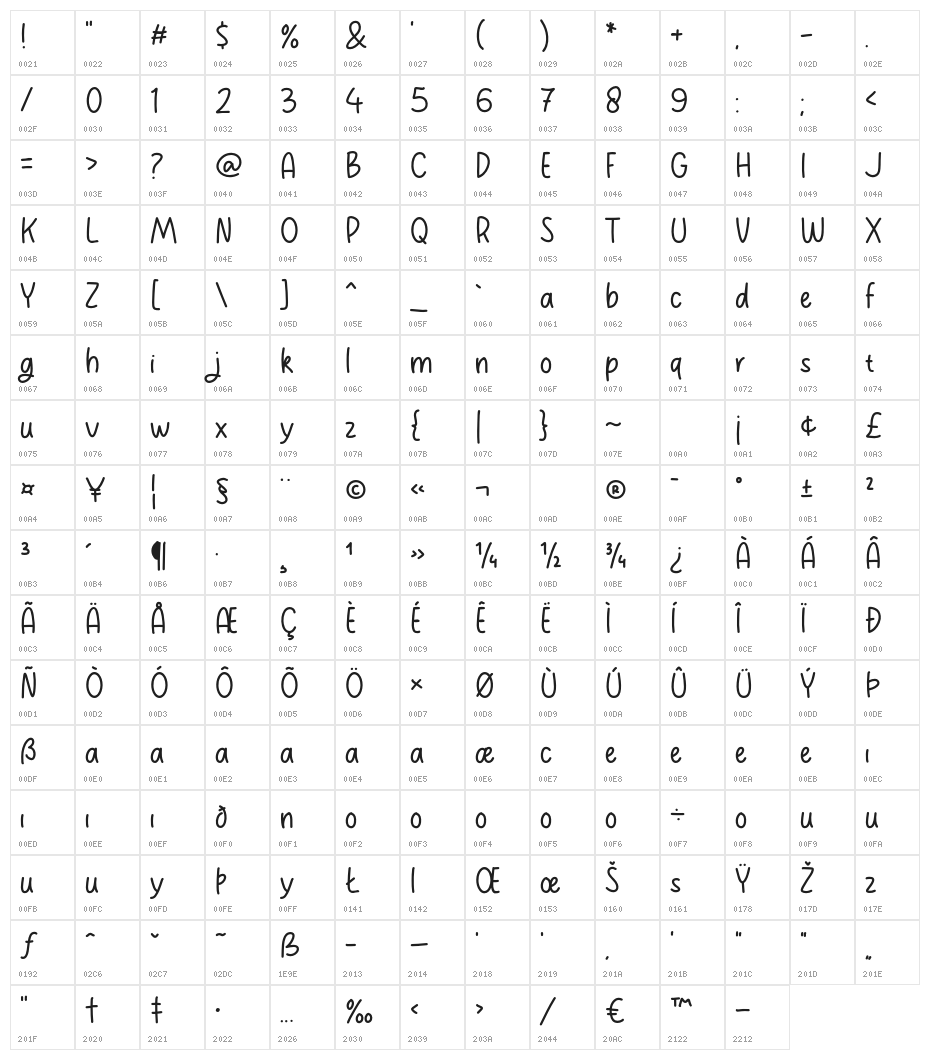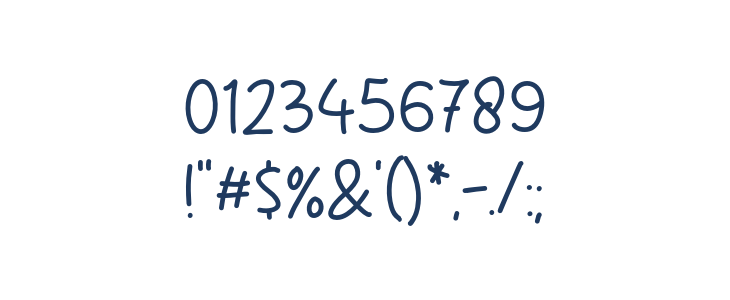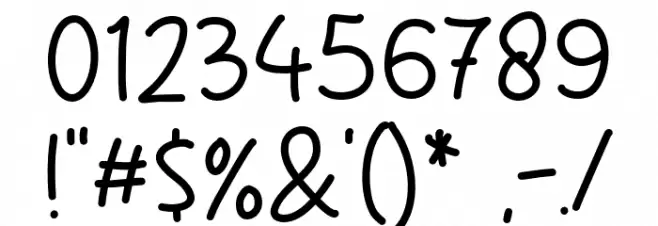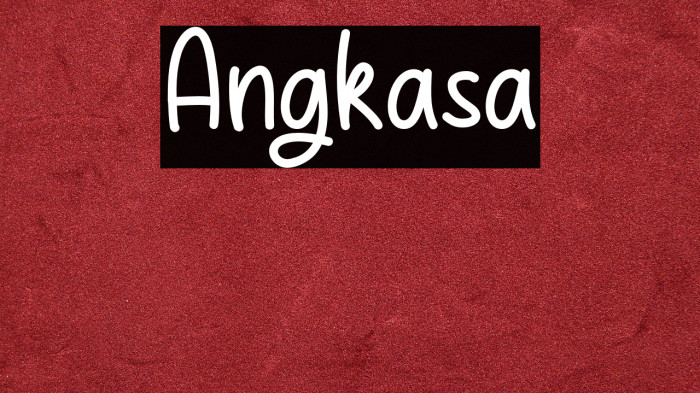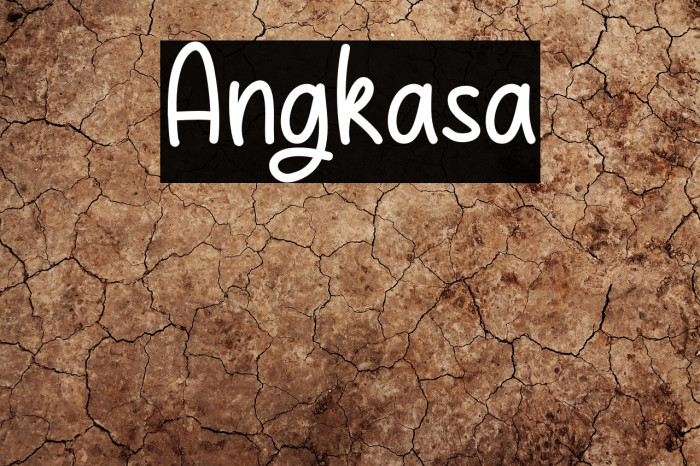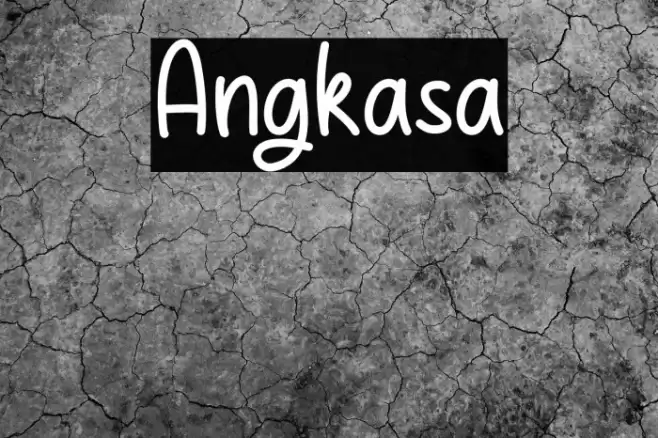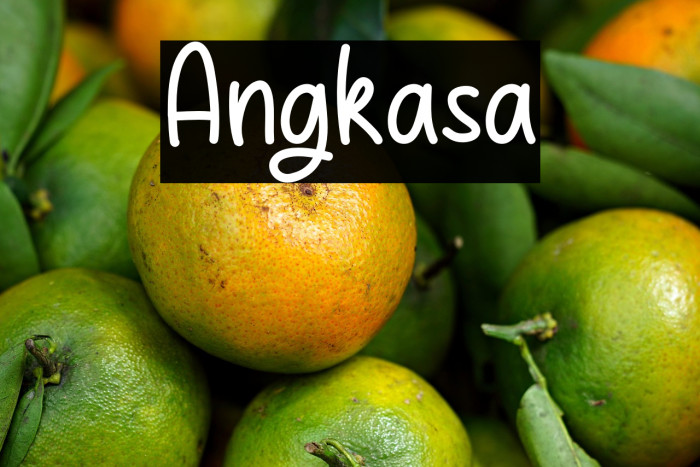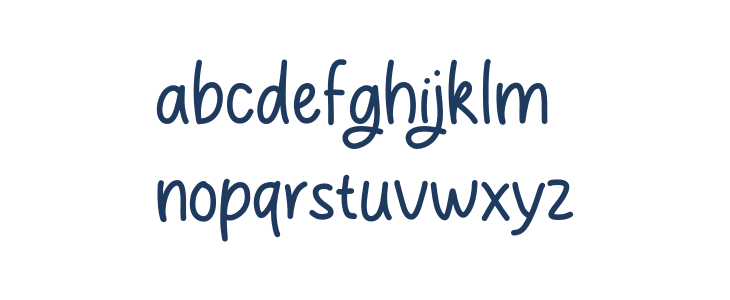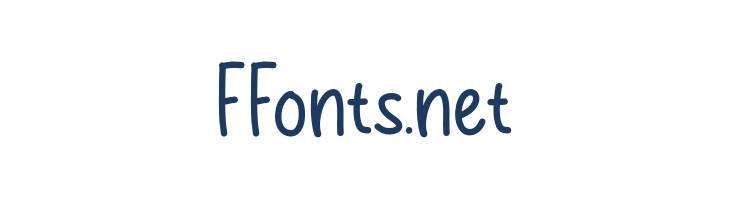
Angkasa Font
Angkasa Description
This font features a playful, handwritten style with smooth, rounded edges and a casual appearance. The characters are slightly irregular, adding to the informal and friendly feel. The uppercase and lowercase letters maintain a consistent style, with a slight slant that gives a sense of movement and dynamism. The numbers and special characters follow the same aesthetic, ensuring uniformity across all glyphs. This font is ideal for projects that require a personal touch, such as invitations, greeting cards, or children's books. Its legibility and charm make it suitable for both digital and print media.
| Overall Style | Casual, Playful |
| Use Case | Headlines, Informal Text, Branding |
| Proposed Projects | Ideal for invitations, greeting cards, children's books, and casual branding. |